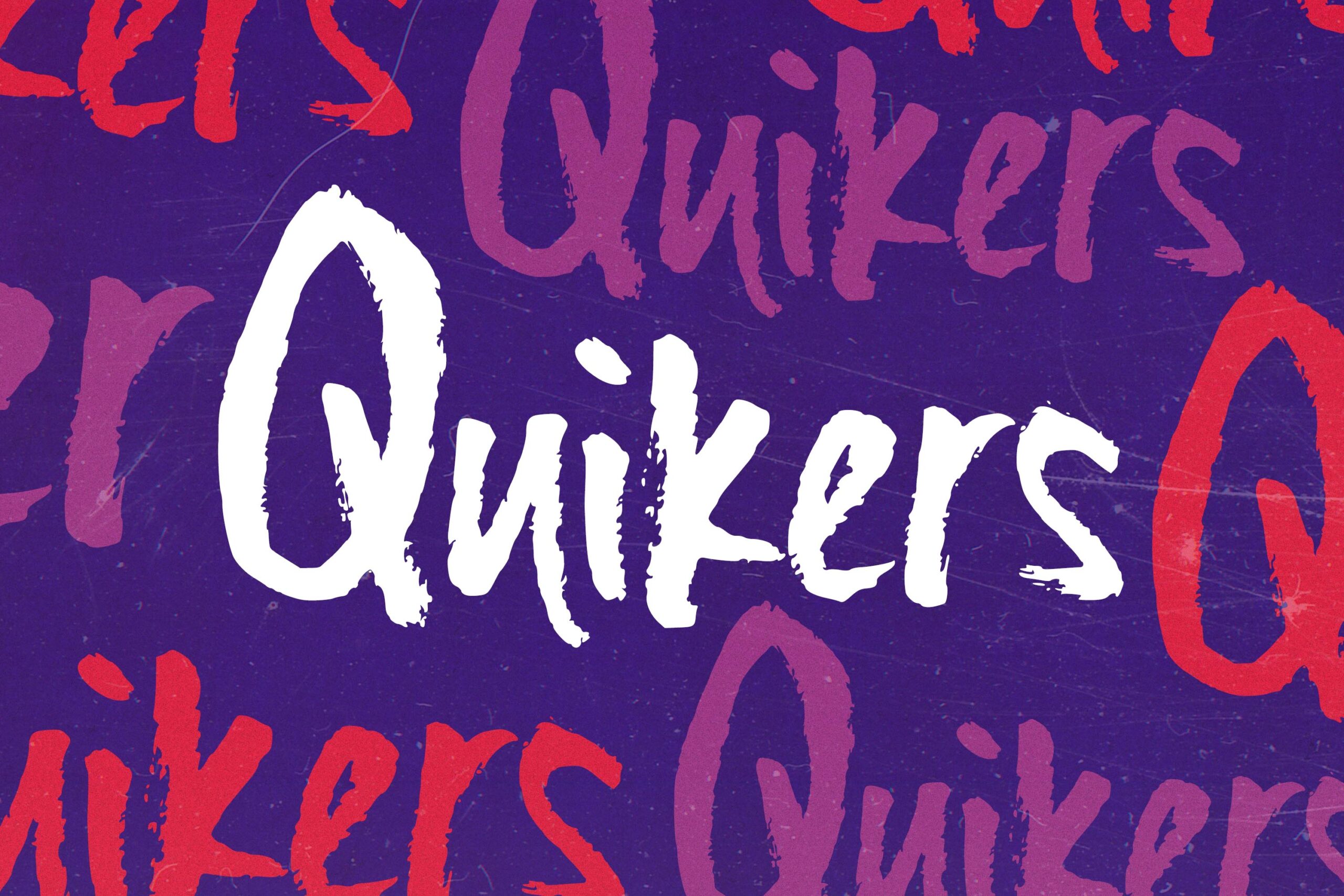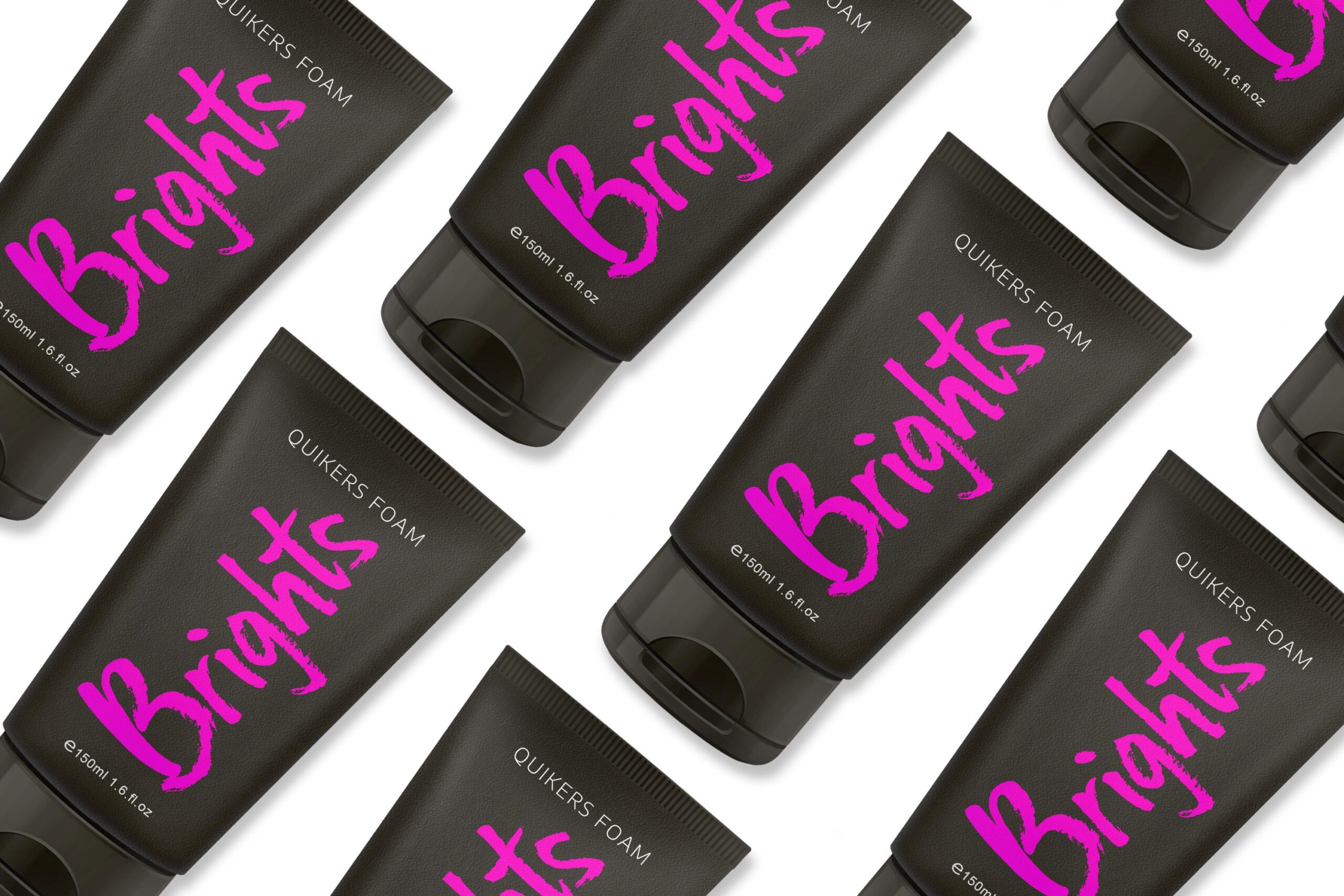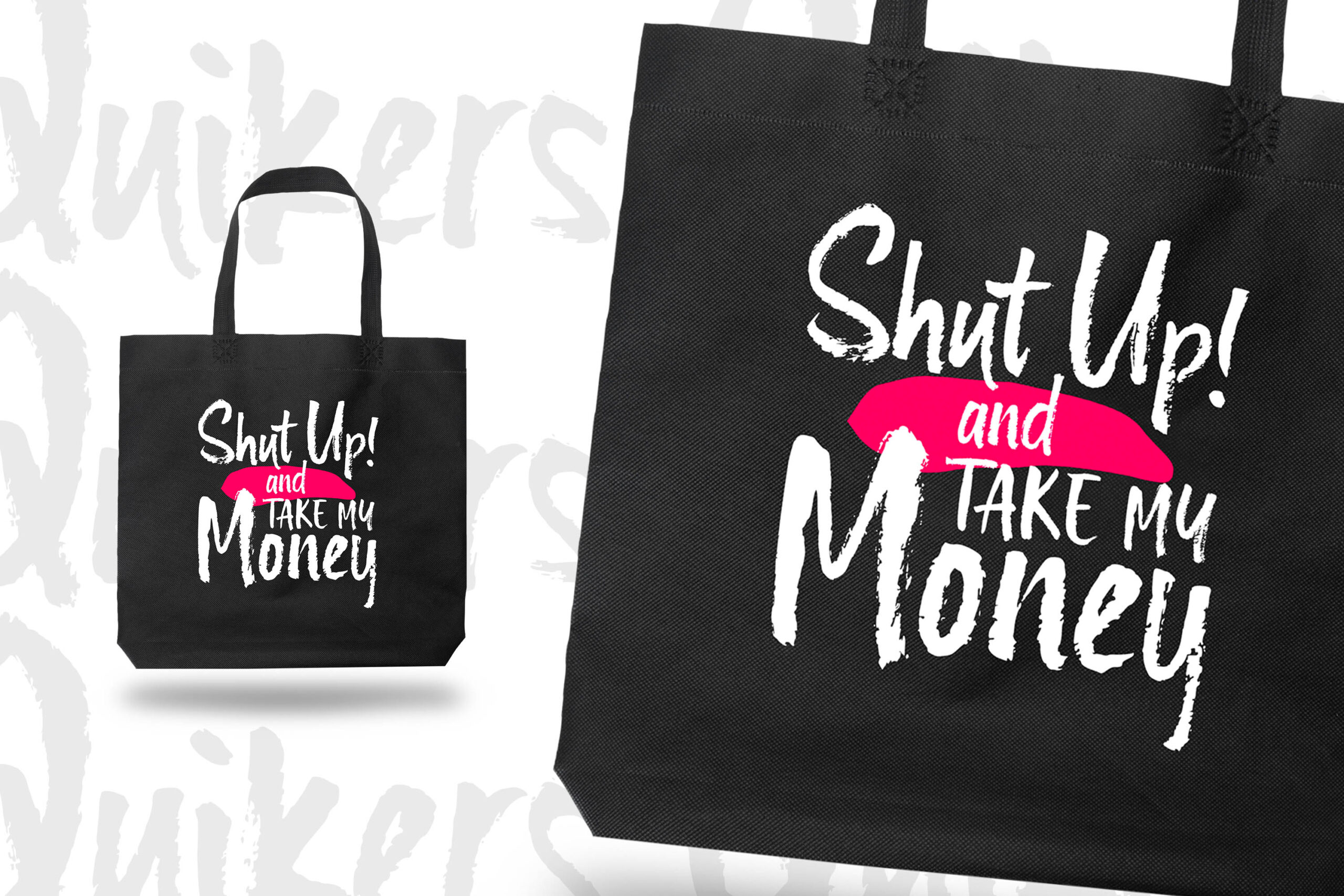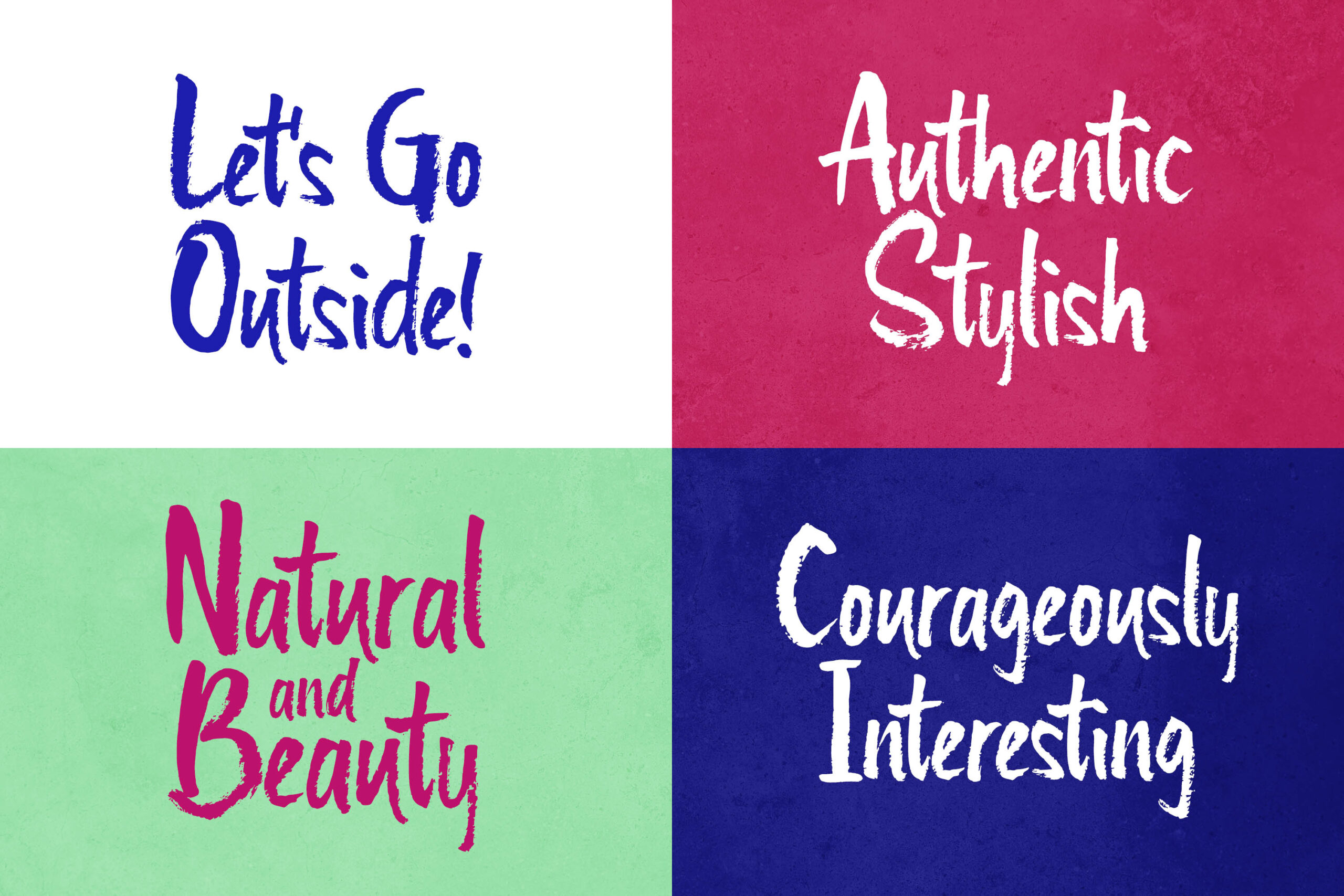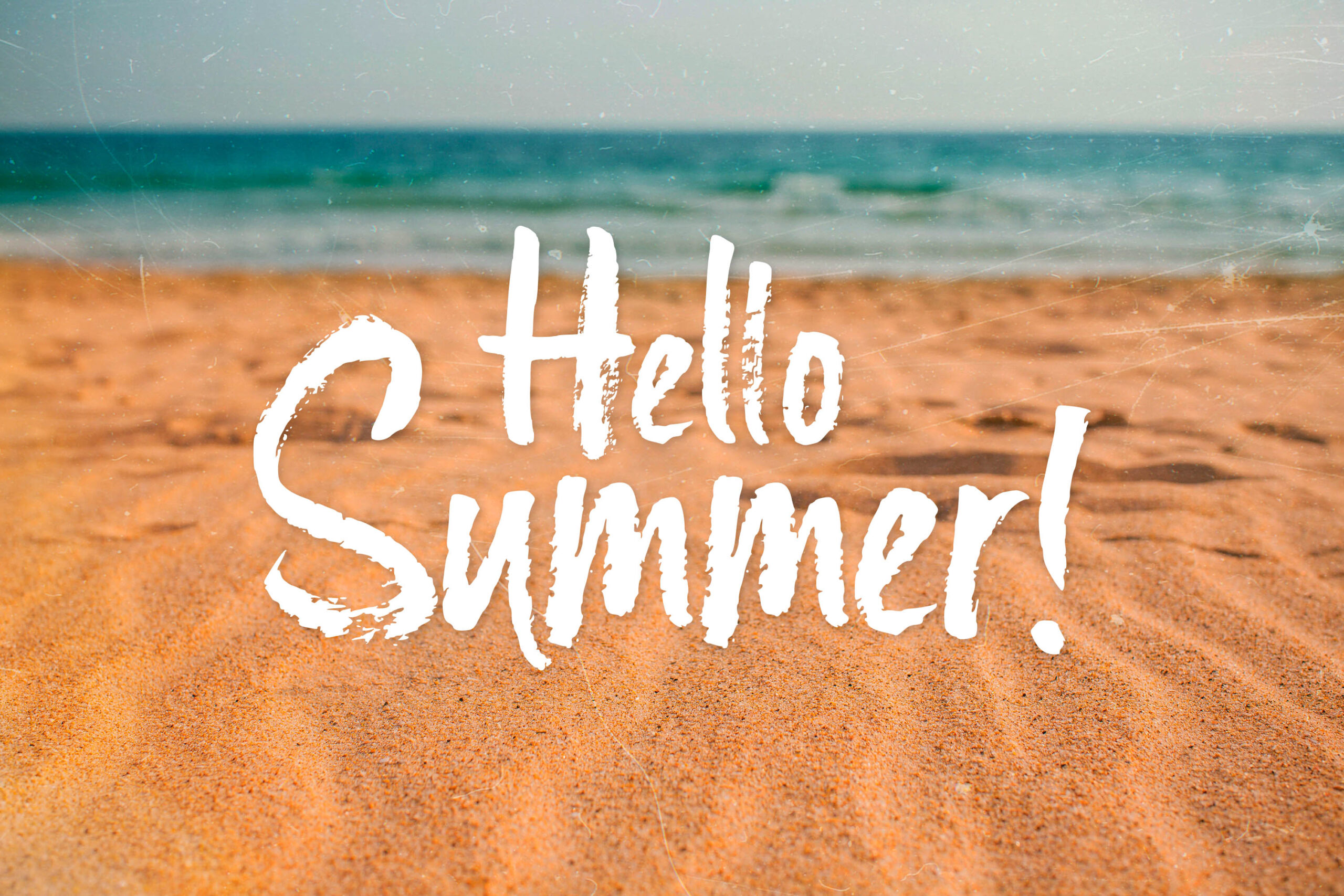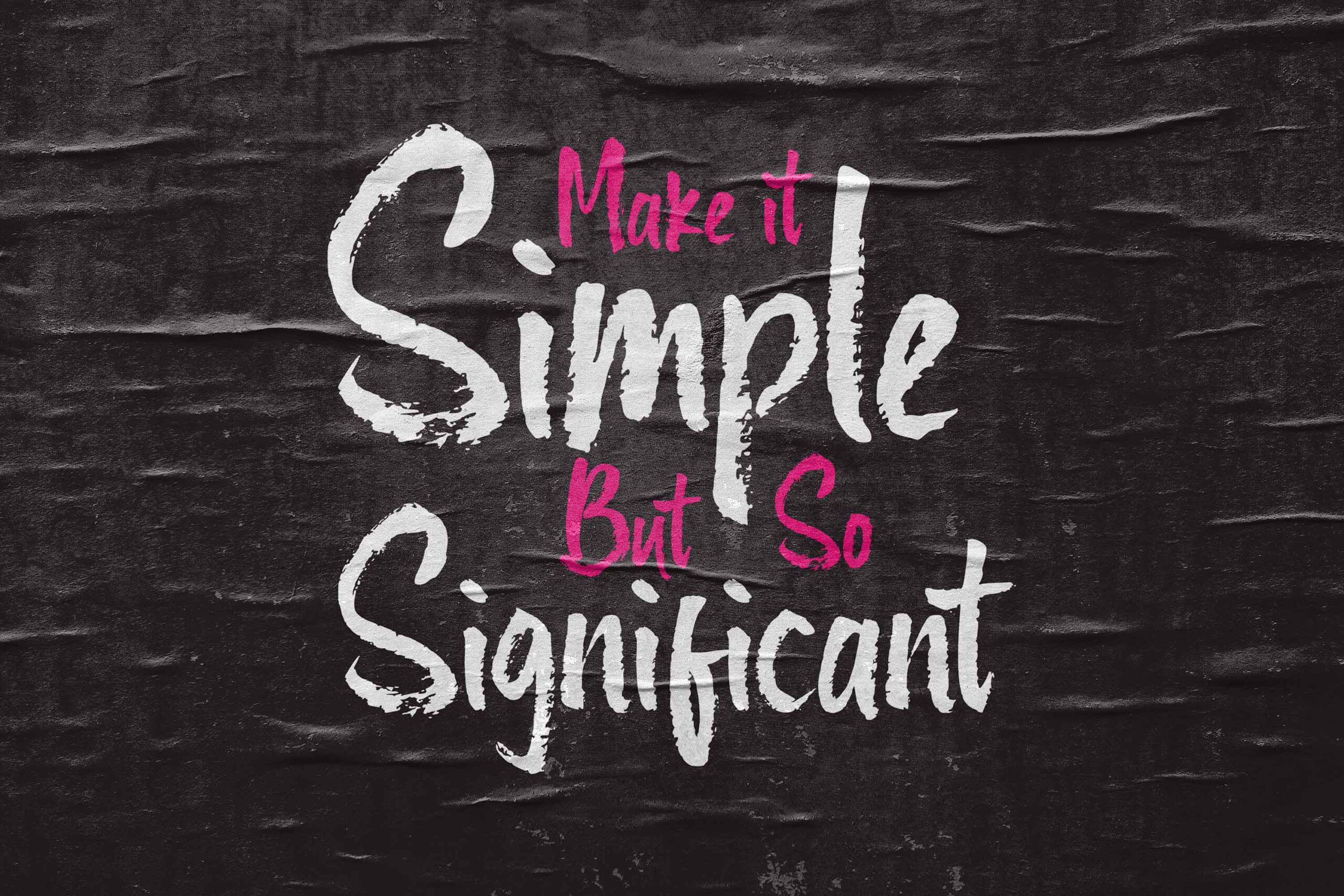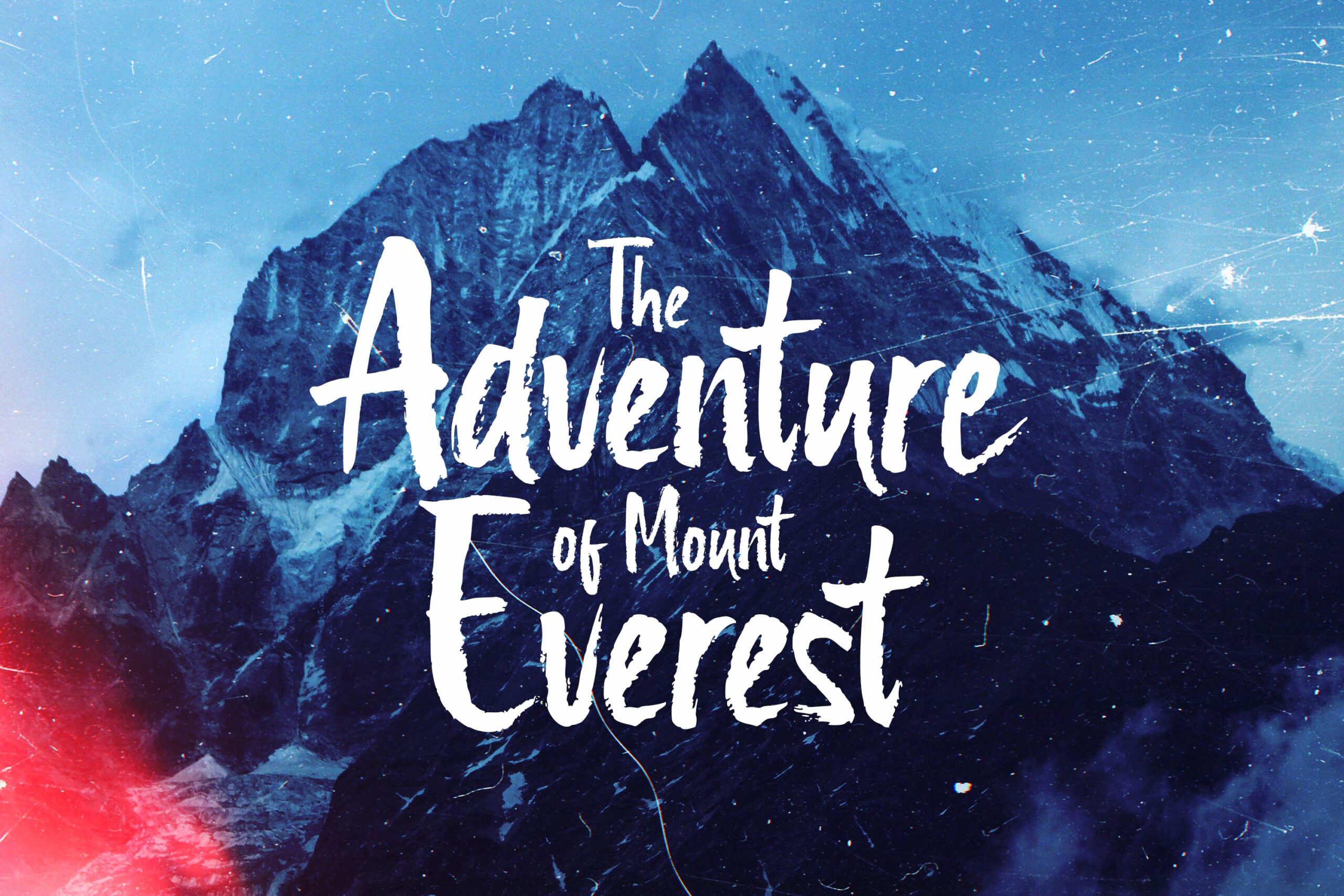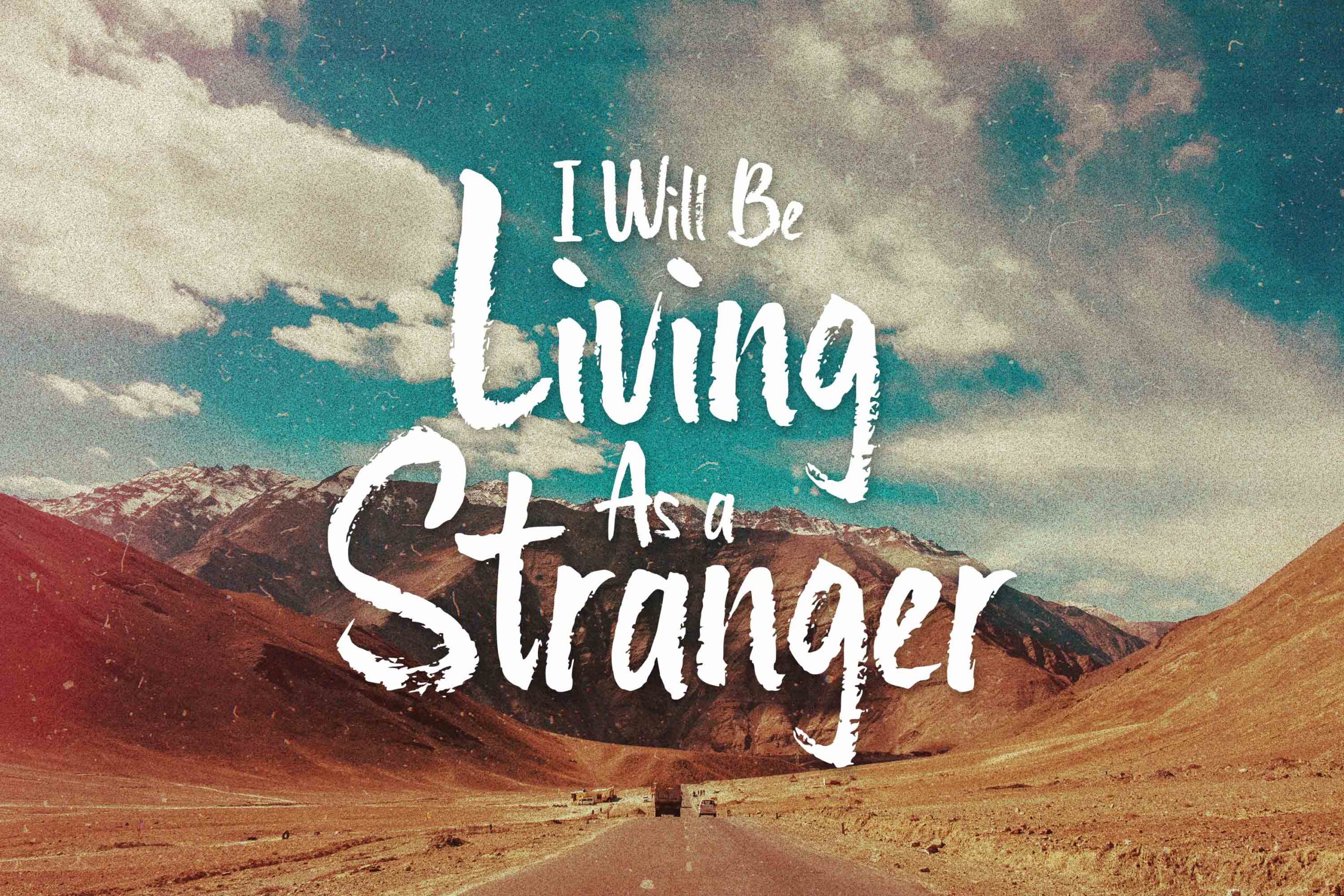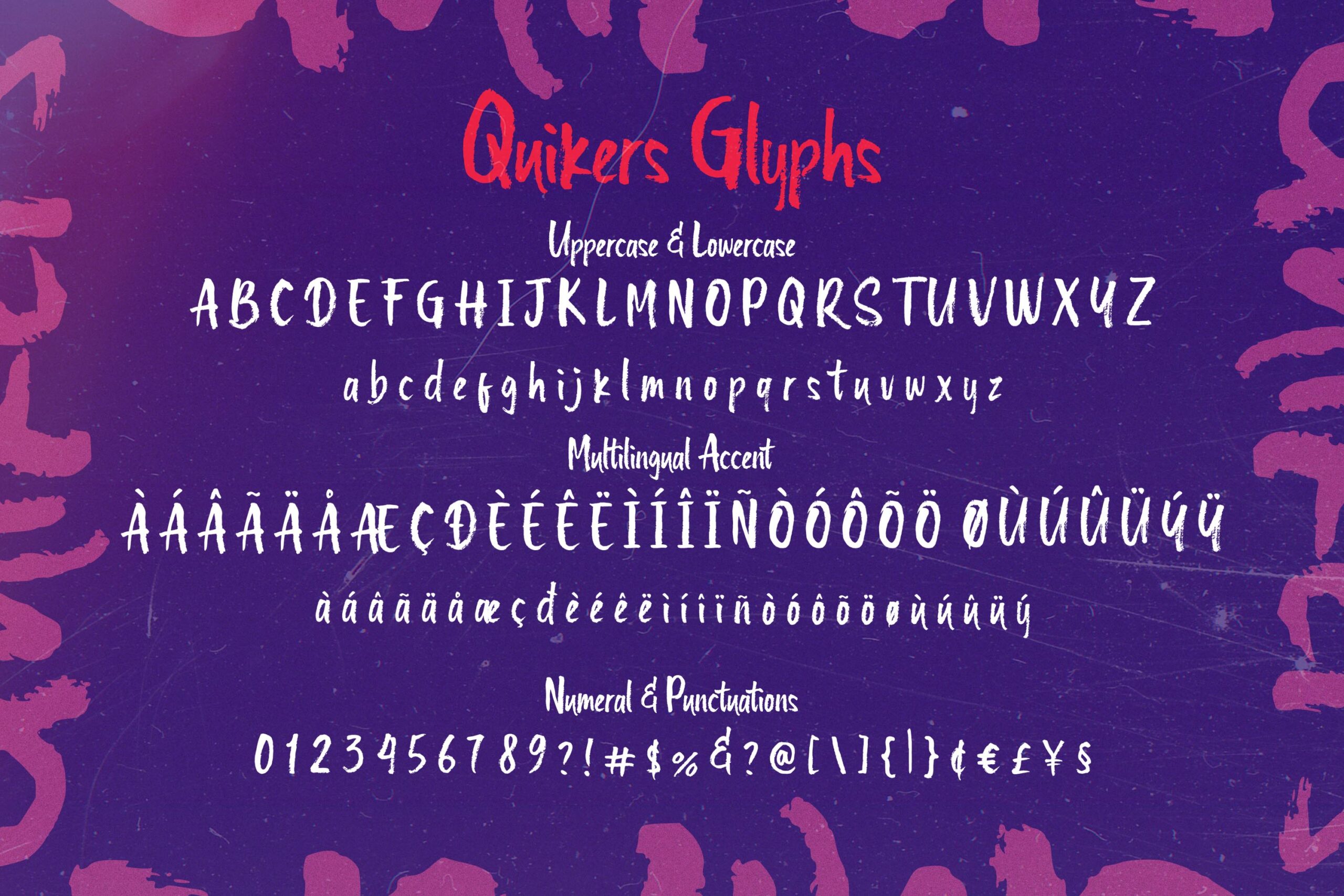
Quikers is a casual brush font that is made from a brush pen with a raw lettering style. It’s good for your design project if you want a different look or adventure vibes in it. You can use this font for a project like cover design, print ads, flyers, brochures, t-shirts, and so on.
- Kerning
- Ligatures
- Stylistic Alternates
- 62 Language Support
- Additional Accents